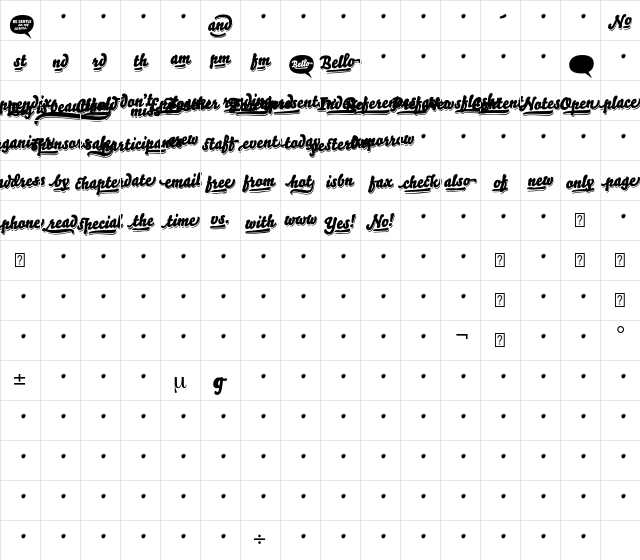
Bello Words Solo Regular
Design Context for Bello Words Solo Typeface
Bello Words Solo is a composed and adaptable typeface that performs quietly and consistently across a wide range of design contexts.